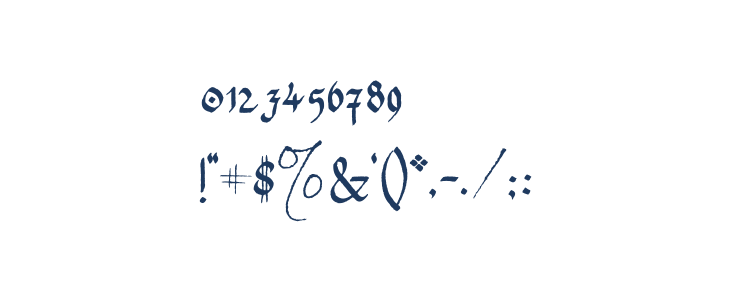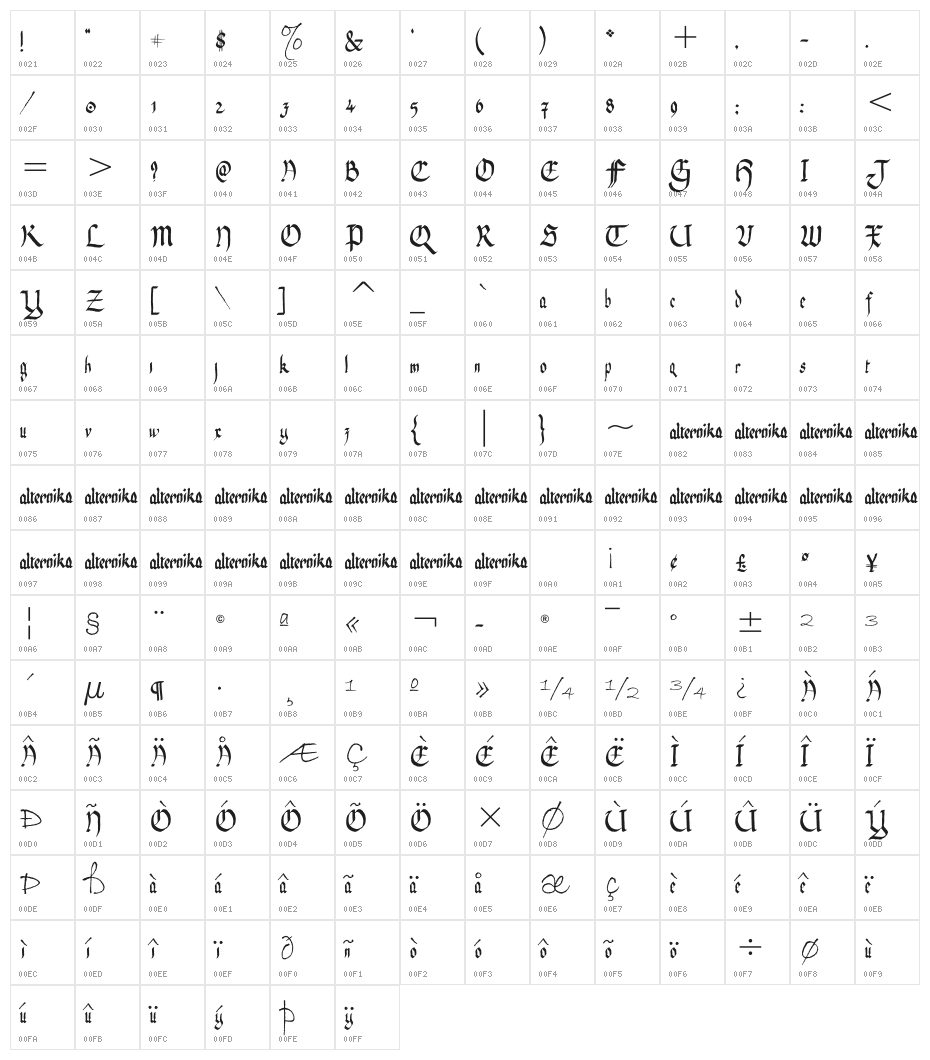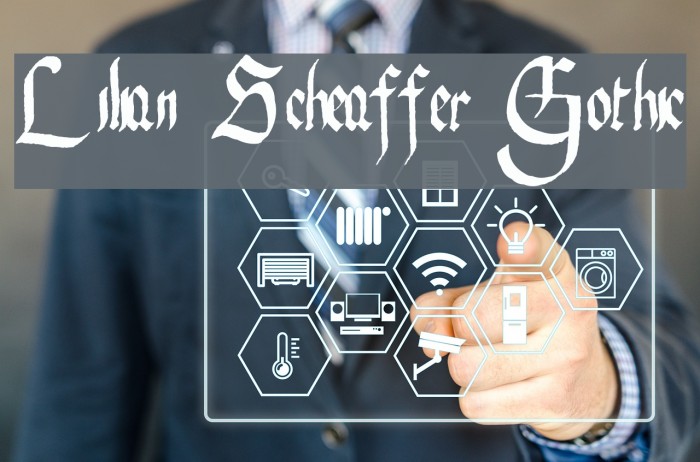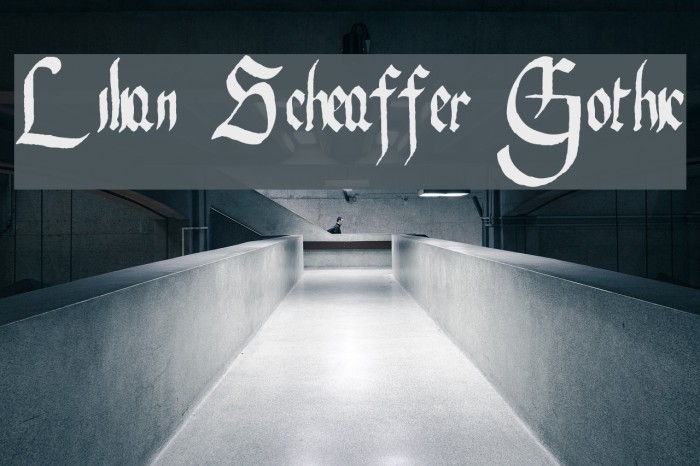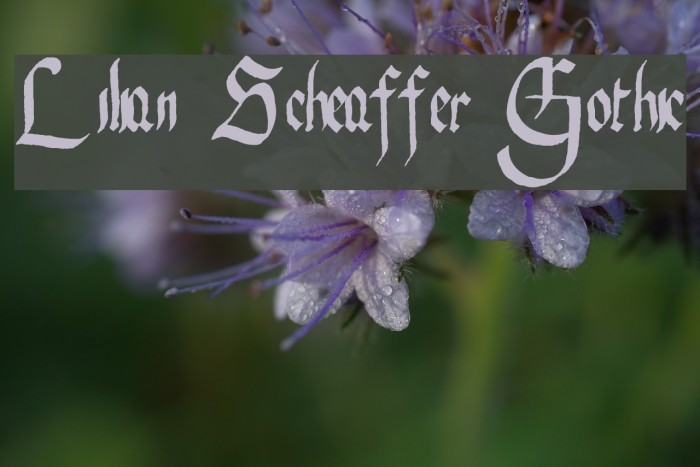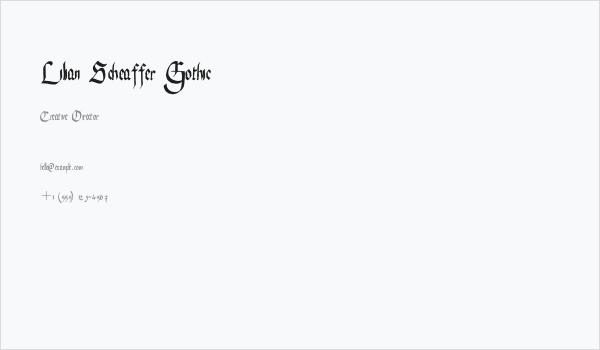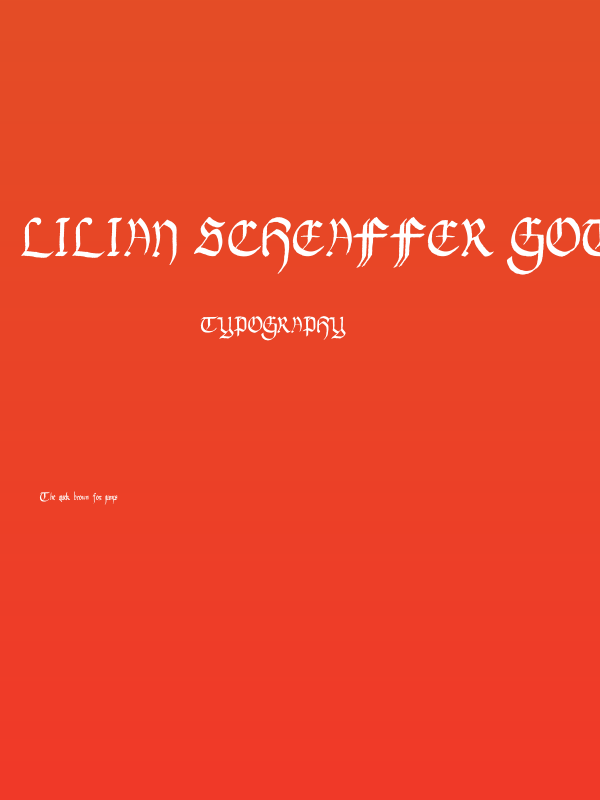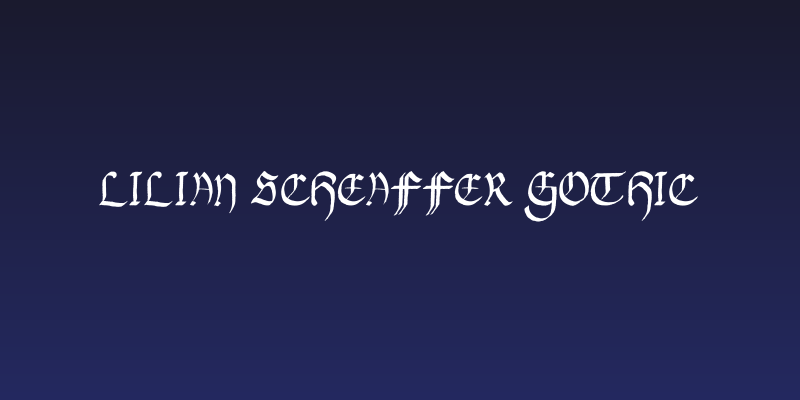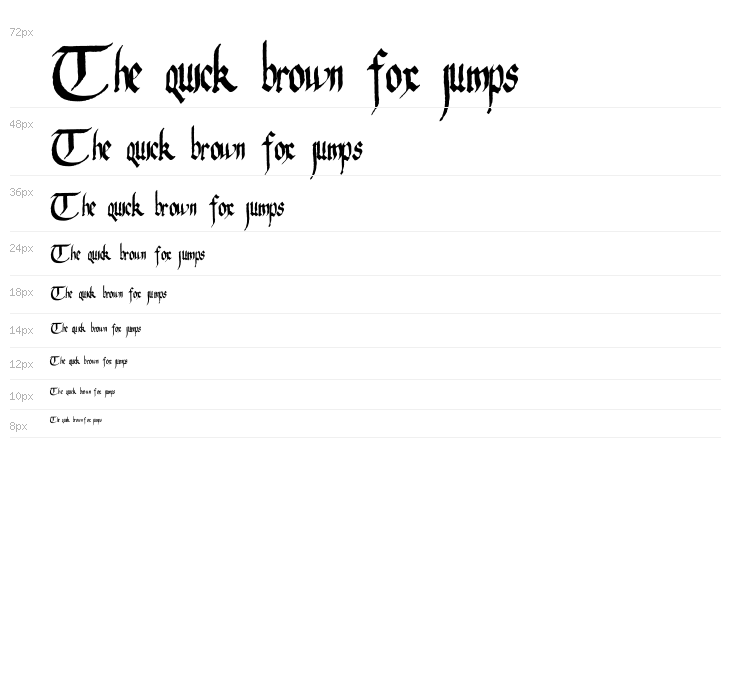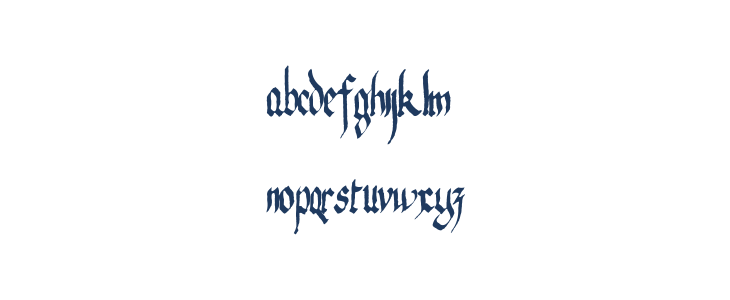
Lilian Scheaffer Gothic Font
Lilian Scheaffer Gothic Description
This font exhibits a classic blackletter style, characterized by its ornate and intricate design. The uppercase letters feature sharp, angular strokes with a distinct medieval flair, while the lowercase letters maintain a similar aesthetic with slightly more fluidity. The numbers and special characters are consistent with the overall gothic theme, adding a touch of elegance and historical charm. The font's unique style makes it stand out, with a strong emphasis on vertical strokes and decorative elements that enhance its visual appeal.
| Proposed Projects | Ideal for historical documents, certificates, book covers, or any project requiring a medieval or gothic theme. |